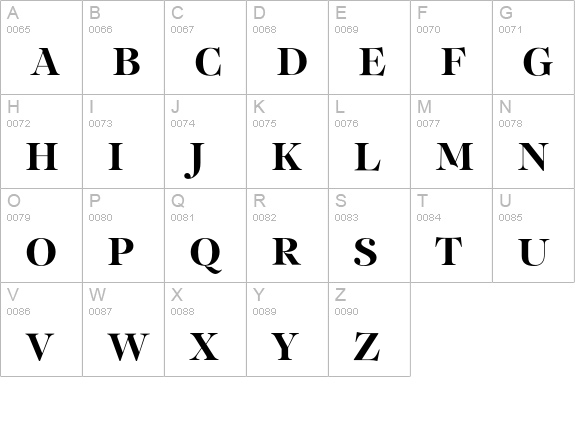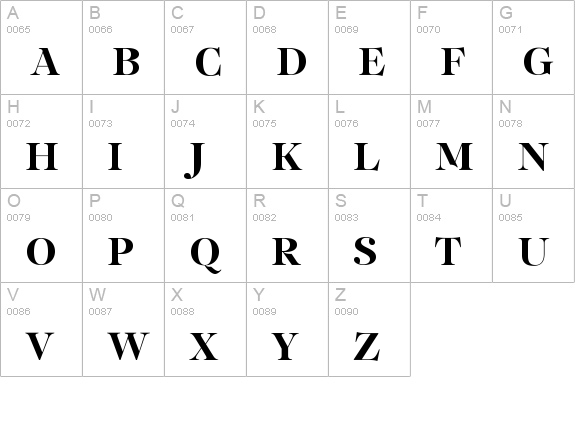
PFRegalDisplayPro-Bold is a strong, high-contrast variant in the PFRegalDisplayPro typeface family \xE2\x80\x94 well suited to headlines, attention-grabbing titles, and strong calls-to-action.
PFRegalDisplayPro-Bold is a striking and powerful font that demands attention with its bold and dynamic presence. This font exudes confidence and sophistication, making it perfect for headlines, titles, and branding materials that require a strong and impactful visual statement. The thick strokes and sharp angles of PFRegalDisplayPro-Bold convey a sense of authority and modernity, making it a versatile choice for a wide range of design projects. Best of all, PFRegalDisplayPro-Bold is available for free download at FontsMarket.com, making it easily accessible to creators and designers looking to add a touch of bold elegance to their work. Whether you're designing a poster, logo, or website, PFRegalDisplayPro-Bold is sure to make a lasting impression with its bold and commanding aesthetic. Download this font today and elevate your designs with its impressive presence.